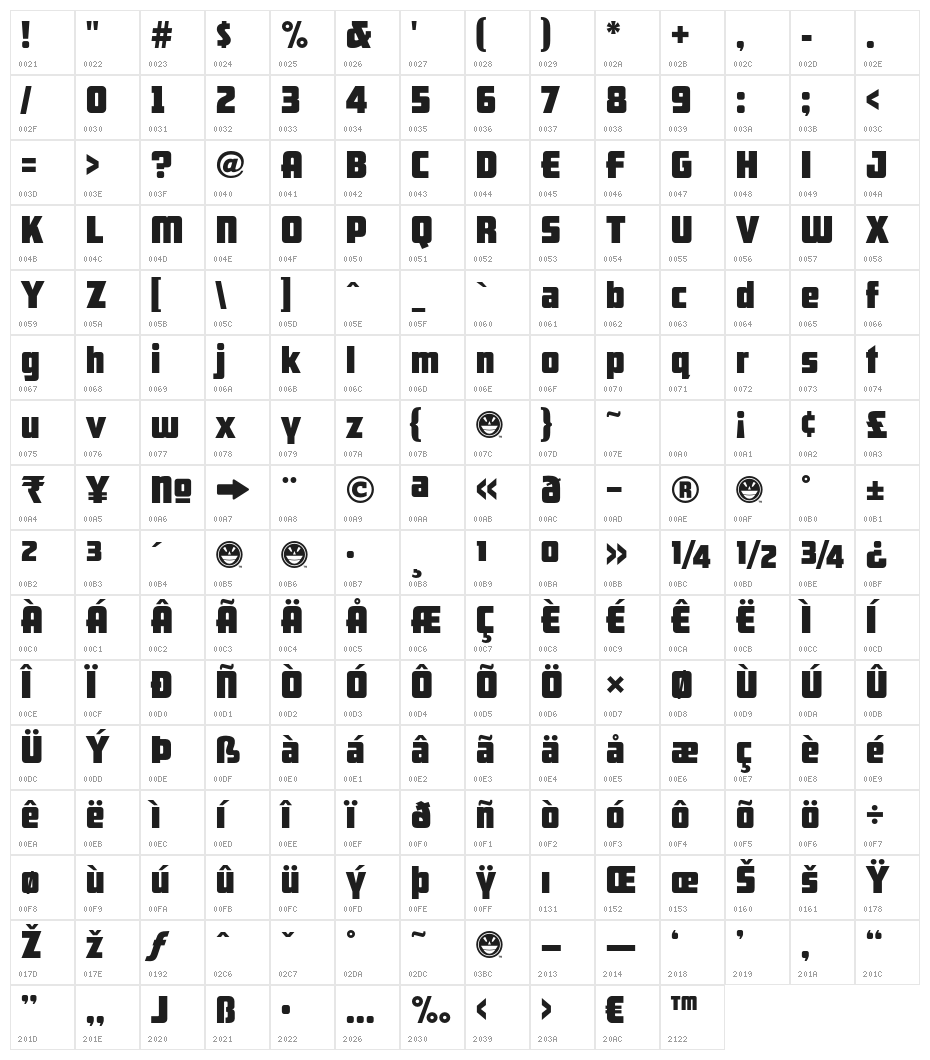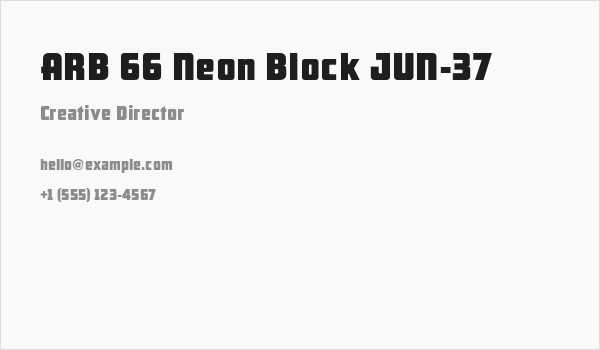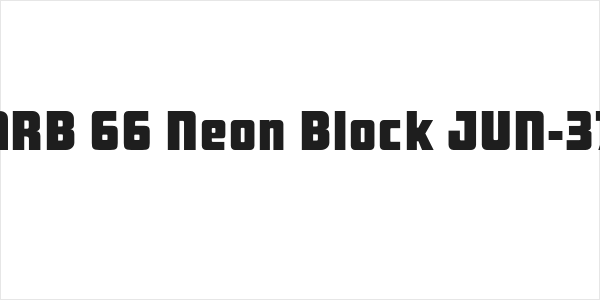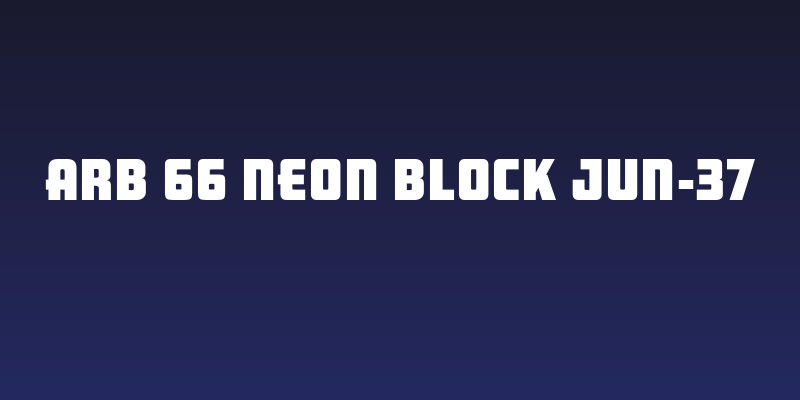
ARB 66 Neon Block JUN-37 Font
ARB 66 Neon Block JUN-37 Description
This font features a bold, blocky style with a strong geometric influence. The uppercase and lowercase letters are uniformly thick, giving a robust and impactful appearance. The characters are designed with a modern aesthetic, featuring sharp angles and clean lines. The numbers and special characters maintain the same boldness, ensuring consistency throughout. This font is ideal for making a statement, with its high visibility and striking presence.
| Proposed Projects | Ideal for headlines, posters, signage, and branding projects that require a strong visual impact. |